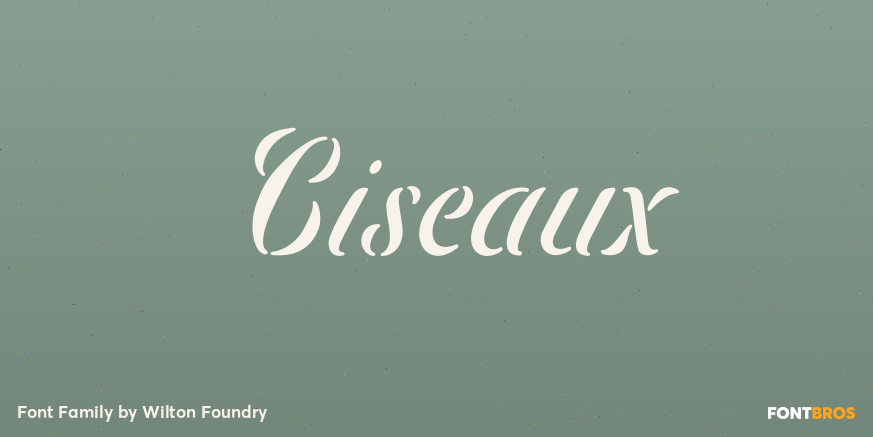
Ciseaux
About Ciseaux
Ciseaux is inspired by and dedicated to the art of papercutting. Early papercutting artists were often royalty, but it soon became a folk art practiced by commoners whose cutouts decorated their homes. By the seventeenth century it had spread throughout…